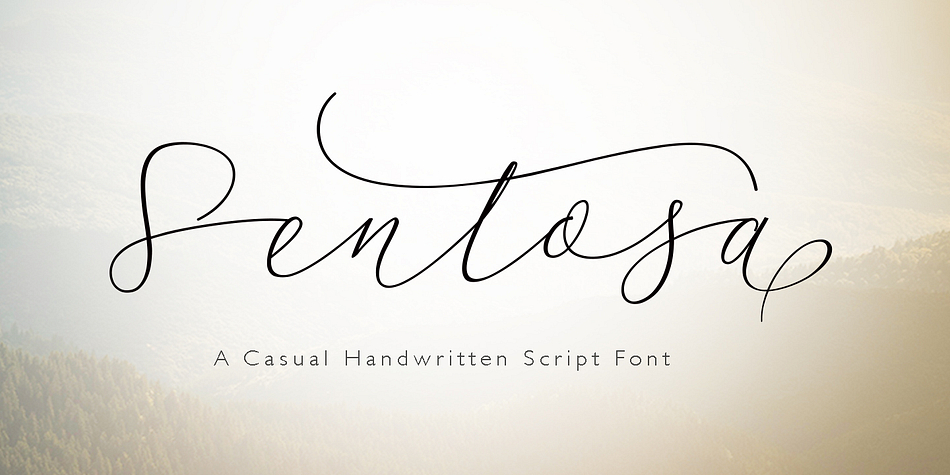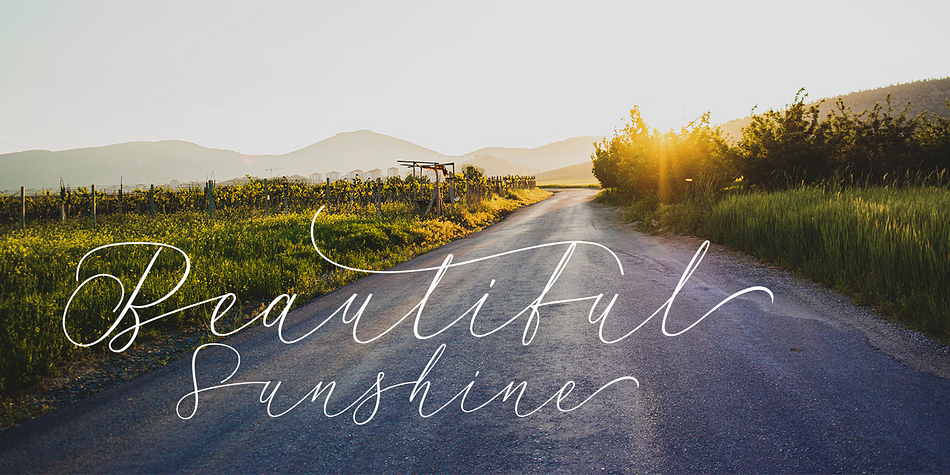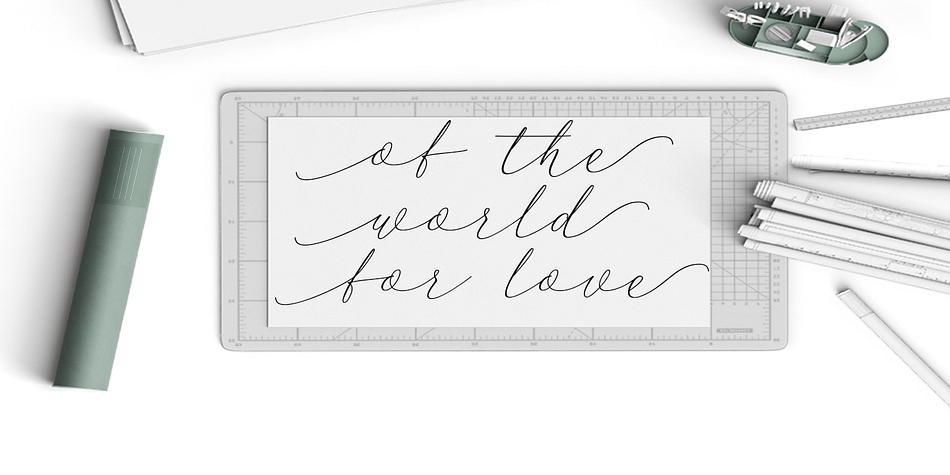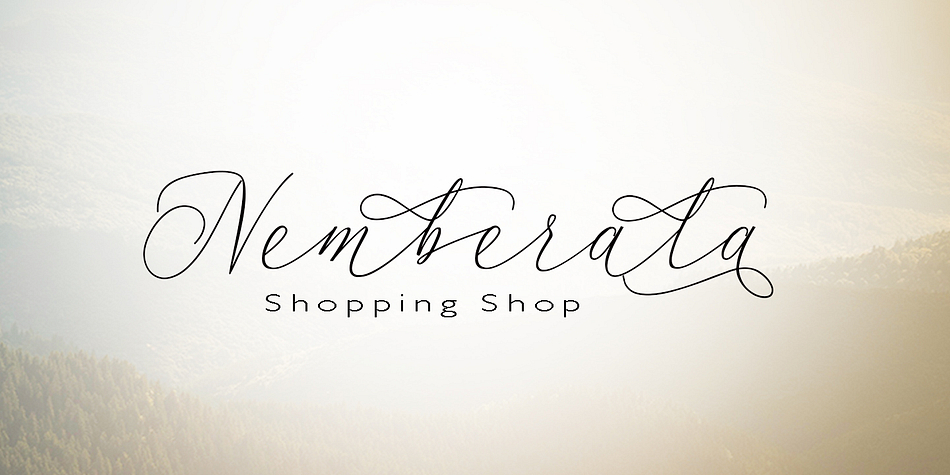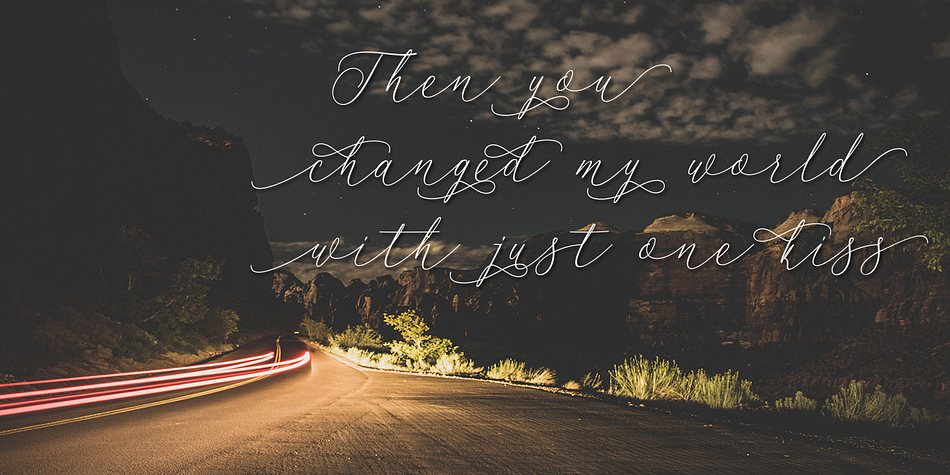
Sentosa is a script and modern calligraphy font published by pollem.Co.
Sentosa is purely handwritten monoline script. This font is perfect for invitations, signatures, blogs, social media, business cards, product brands.
Sentosa has stylistic sets, alternates, and ligatures. It includes uppercase and lowercase letters, numbers and punctuation marks.
The Features of this fonts are:
* Standart ligatures
* Stylistic Alternates
* Contextual Alternates
* Stylistic sets